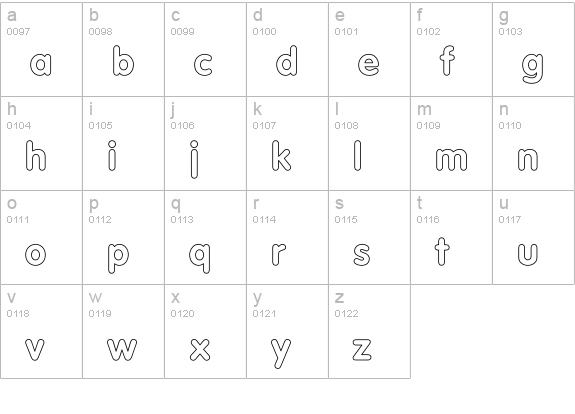
Tubular Hollow Font Details
Introducing Tubular Hollow, a captivating and modern font that will add a touch of elegance and sophistication to any design project. With its sleek and streamlined appearance, this font is perfect for creating eye-catching headlines, logos, and branding materials. What sets Tubular Hollow apart is its unique and intricate design. Each letter is meticulously crafted with a tubular hollow center, giving it a sense of depth and dimension. This font exudes a sense of modernity and contemporary style, making it an ideal choice for those looking to make a bold statement. Tubular Hollow is not only visually striking but also highly versatile. It can be used in a variety of design applications, from print materials to websites and digital graphics. Whether you're working on a sleek corporate brochure or a trendy fashion website, this font will effortlessly elevate your design to new heights. One of the best things about Tubular Hollow is that it is freely available to download at FontsMarket.com. This means that you can easily access this stunning font without any cost, making it a valuable asset for both personal and commercial projects. Downloading Tubular Hollow is a breeze, allowing you to start using it in your designs right away. With its captivating design and accessibility, Tubular Hollow is a font that will undoubtedly leave a lasting impression. So why wait? Head over to FontsMarket.com now and experience the power and beauty of Tubular Hollow for yourself.